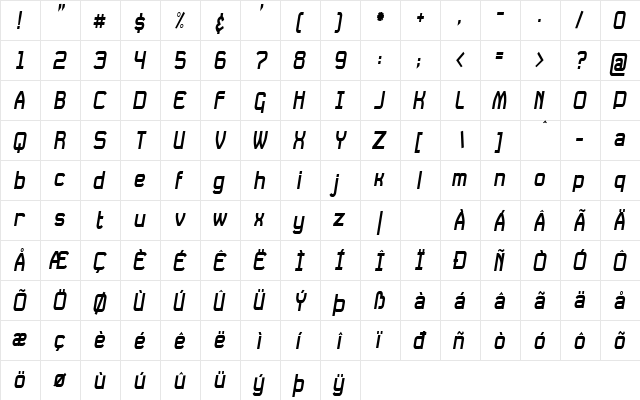
Daville Condensed Slanted Normal
Design Context for Daville Condensed Slanted Typeface
Daville Condensed Slanted is a composed and adaptable typeface that performs quietly and consistently across a wide range of design contexts. The slanted form adds forward momentum and visual energy. The condensed width makes it efficient for tight spaces without sacrificing legibility.